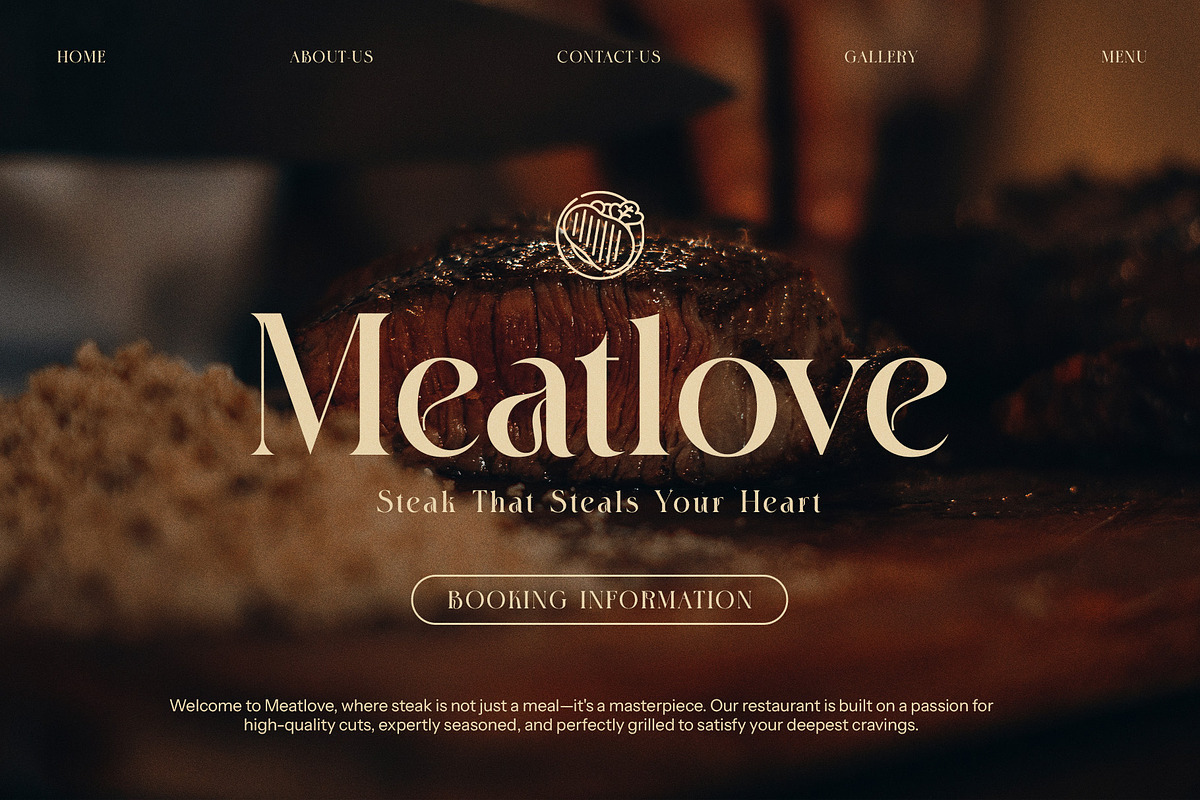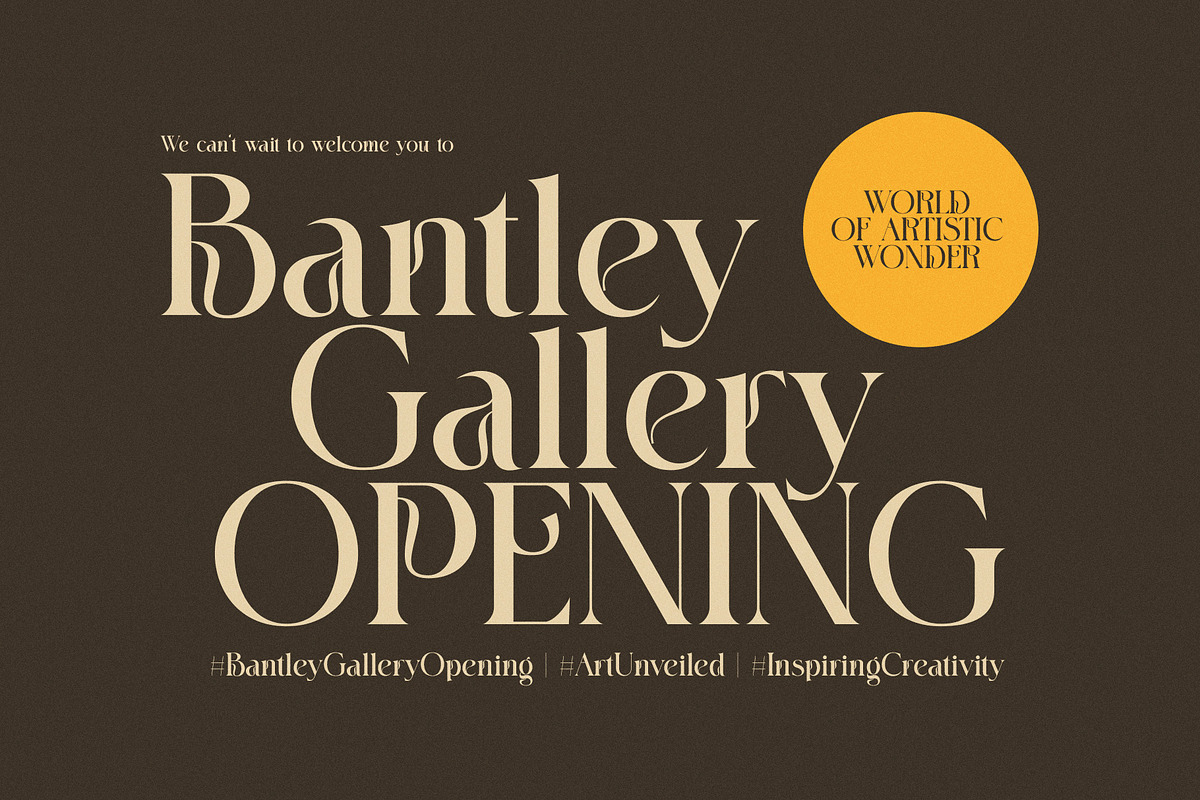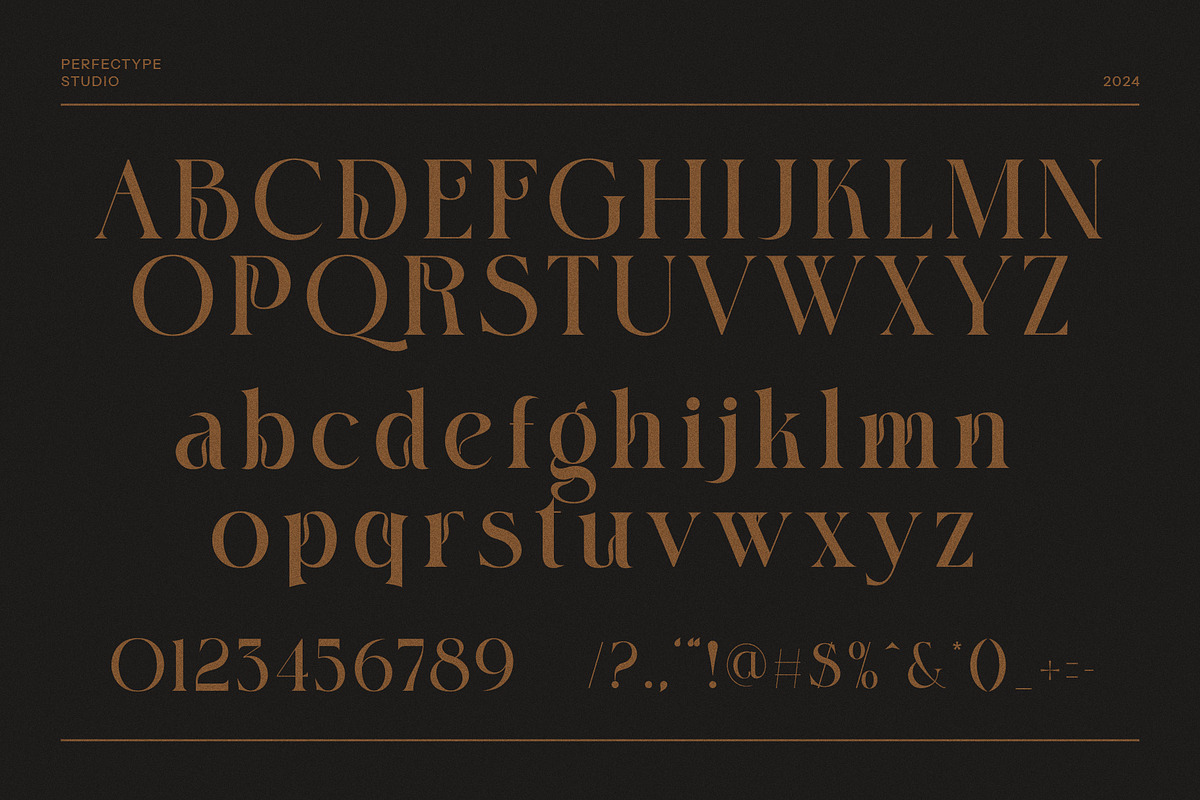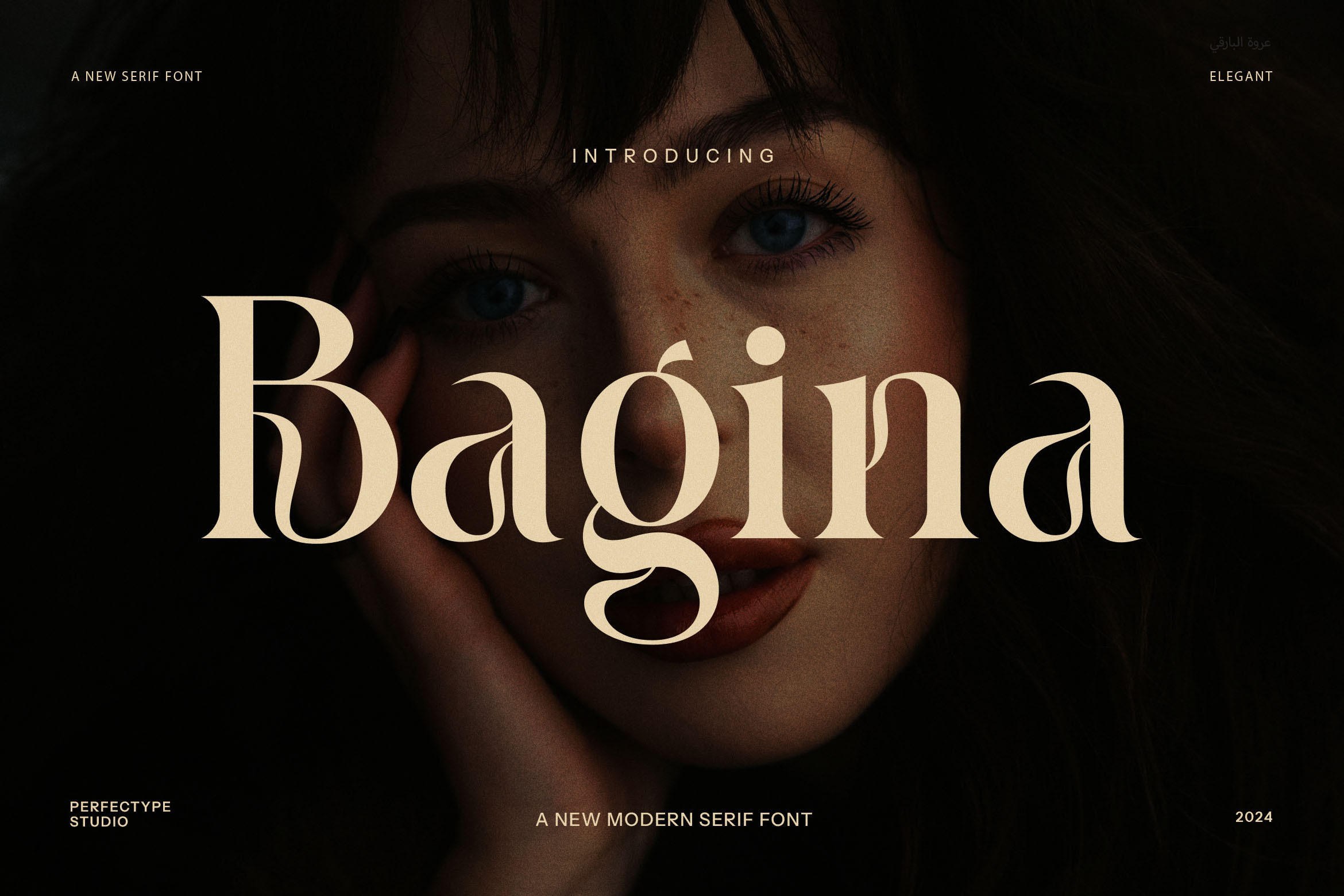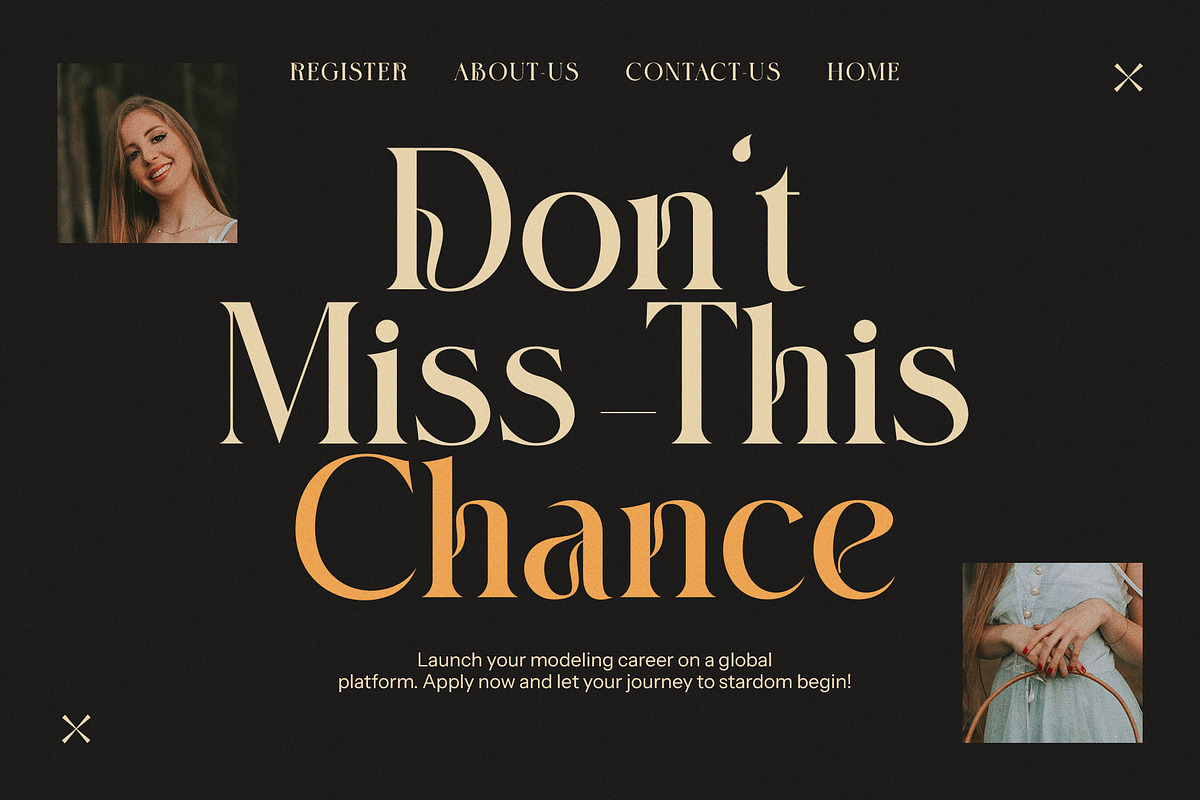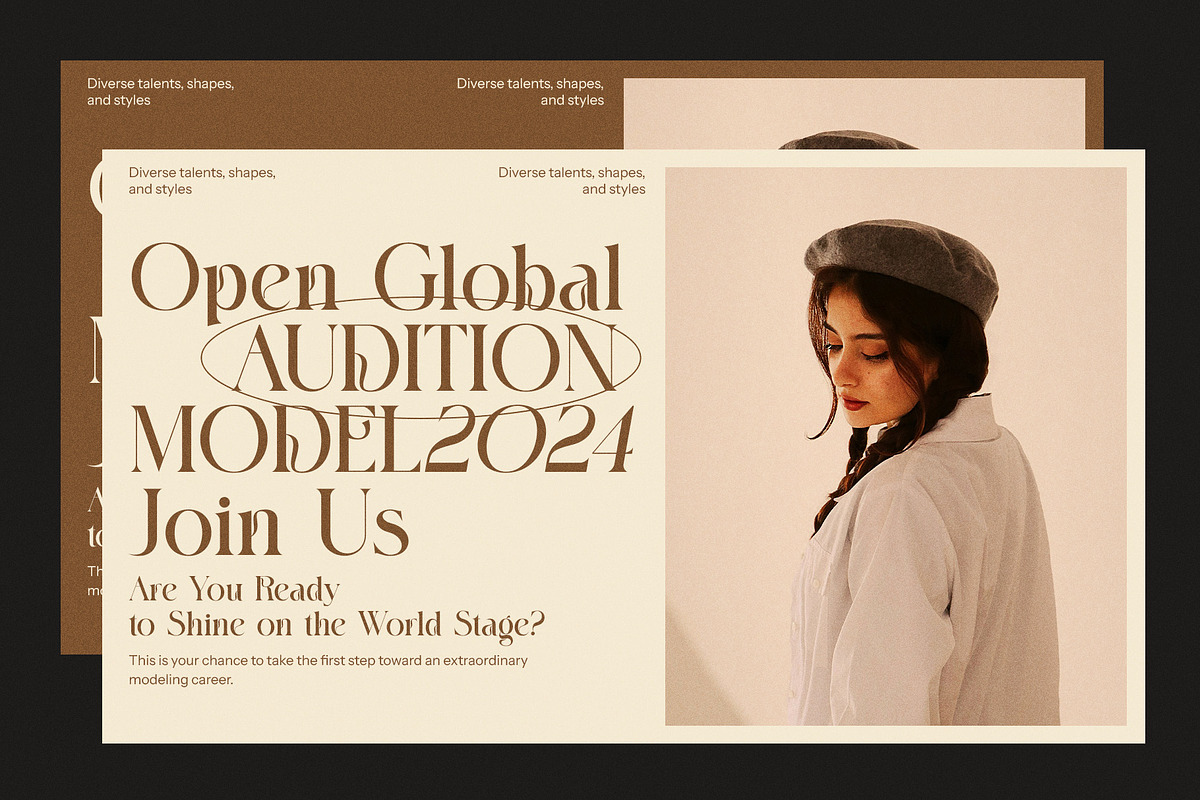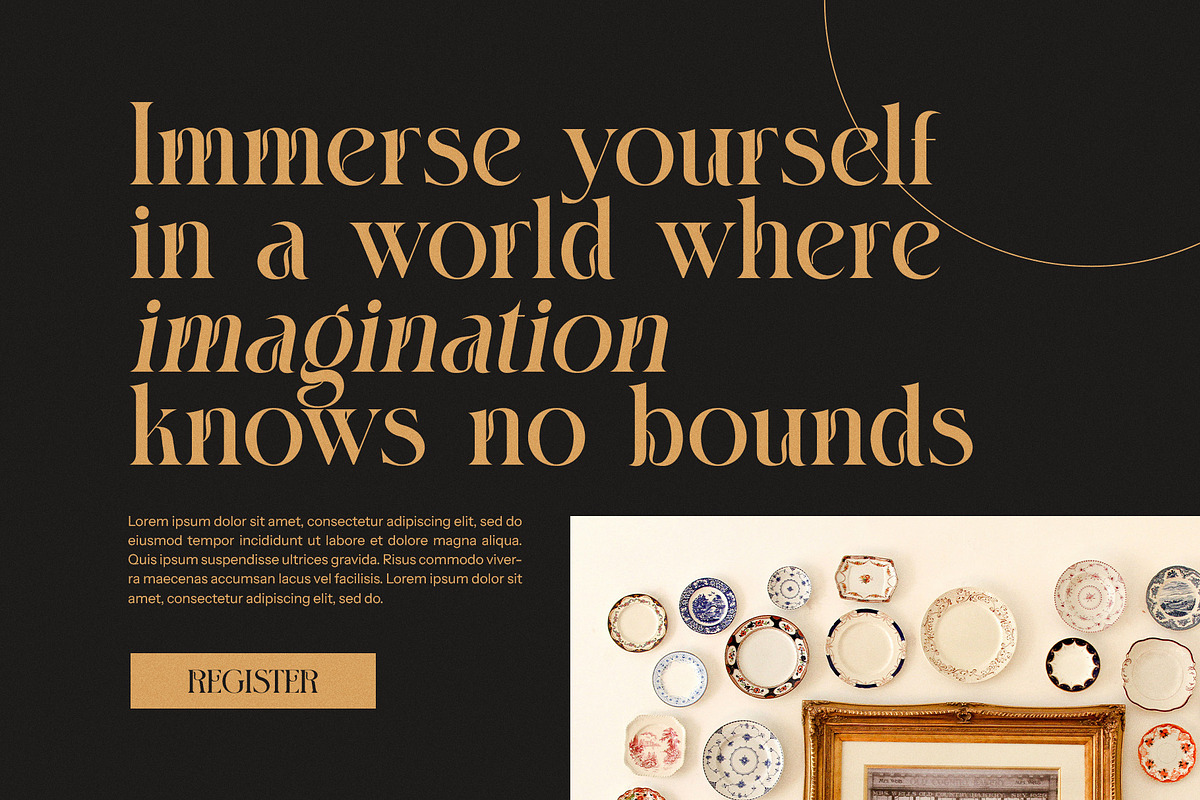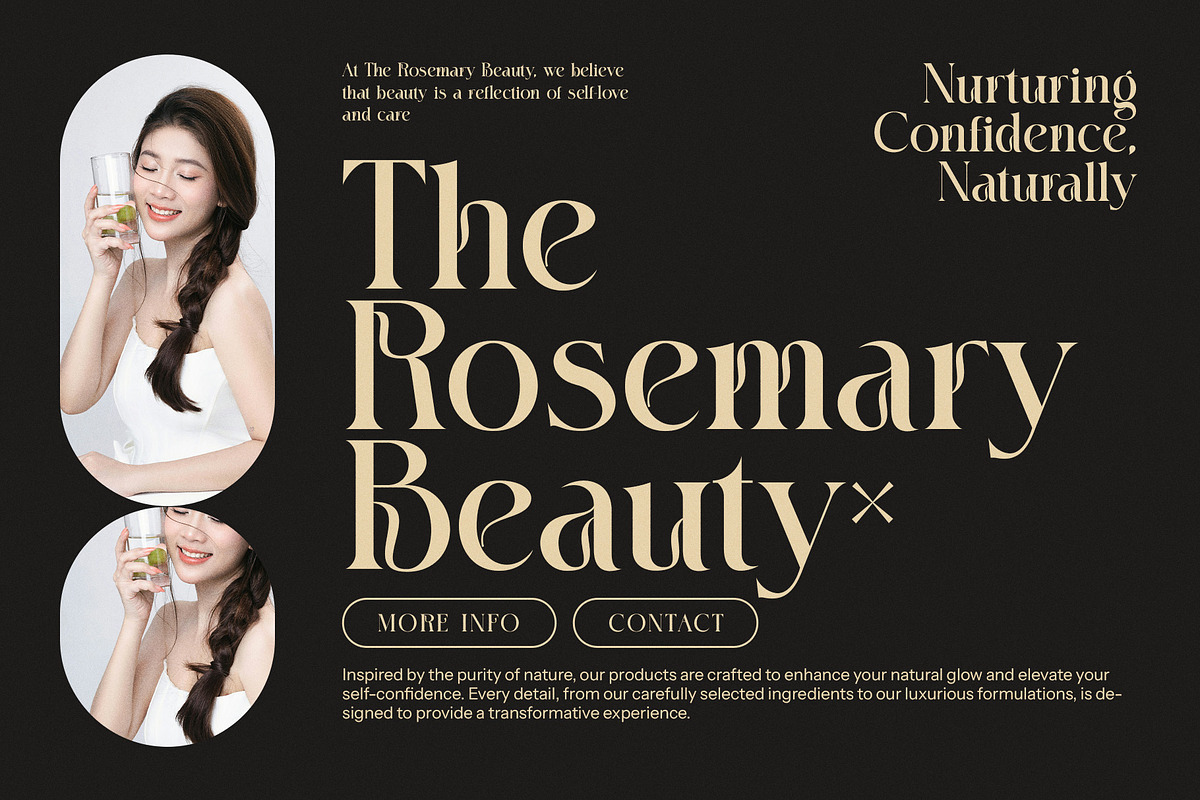
Bagina Elegant Serif Font
Bagina Elegant Serif Font is a striking and refined typeface that beautifully blends modern sophistication with timeless elegance. Crafted with precision, this font features clean lines and distinctive serifs, making it an ideal choice for a wide variety of design projects that demand a touch of class. Its graceful letterforms exude professionalism, while maintaining a sense of warmth and accessibility.
Perfect for high-end branding, Bagina Elegant Serif adds an aura of luxury to logos, packaging, and advertisements. Whether you're designing for a boutique, upscale restaurant, or a premium product line, this font ensures your message stands out with style. The unique structure of each character makes it highly versatile across both digital and print media, giving it the flexibility to work on websites, magazines, product labels, and more.
With its beautiful curves and subtle detailing, Bagina Elegant Serif shines in settings where refinement is key. From editorial layouts to fashion and lifestyle brands, it enhances the visual impact of any project, creating a memorable experience for your audience. This font is not just a typeface—it’s an expression of elegance and modernity that communicates quality and attention to detail.
Whether you’re working on a creative logo, elegant advertisements, or sophisticated print materials, Bagina Elegant Serif Font brings an elevated look to any design. It’s the perfect choice for anyone looking to make a stylish and lasting impression.